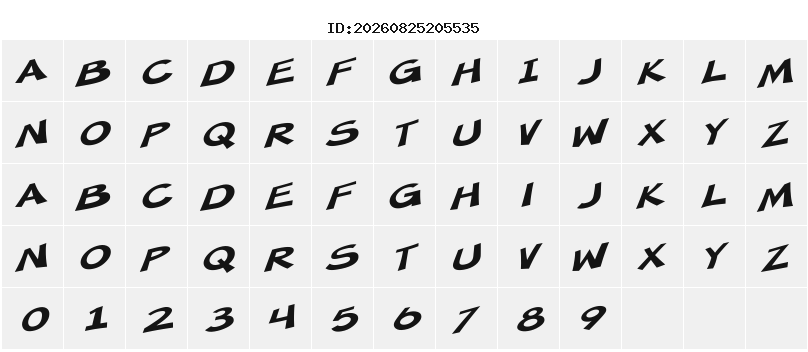
SF Minced Meat Extended Preview
• Font Name: SF Minced Meat Extended
• Font Style: Oblique
• Font ID: ShyFontsTypeFoundry: SF Minced Meat Extended Oblique: 2000
• Full Font Name: SF Minced Meat Extended Oblique
• PostScript Name: SFMincedMeatExtended-Oblique
• Character Count: 217
• Designer: ShyFonts Type Foundry
• Description: SF Minced Meat Extended Oblique is a trademark of the ShyFonts Type Foundry.
About SF Minced Meat Extended.ttf
SF Minced Meat Extended.ttf is a modern, elegant sans-serif font designed for ultimate readability and visual harmony. Perfect for branding, headlines, web design, and print materials.